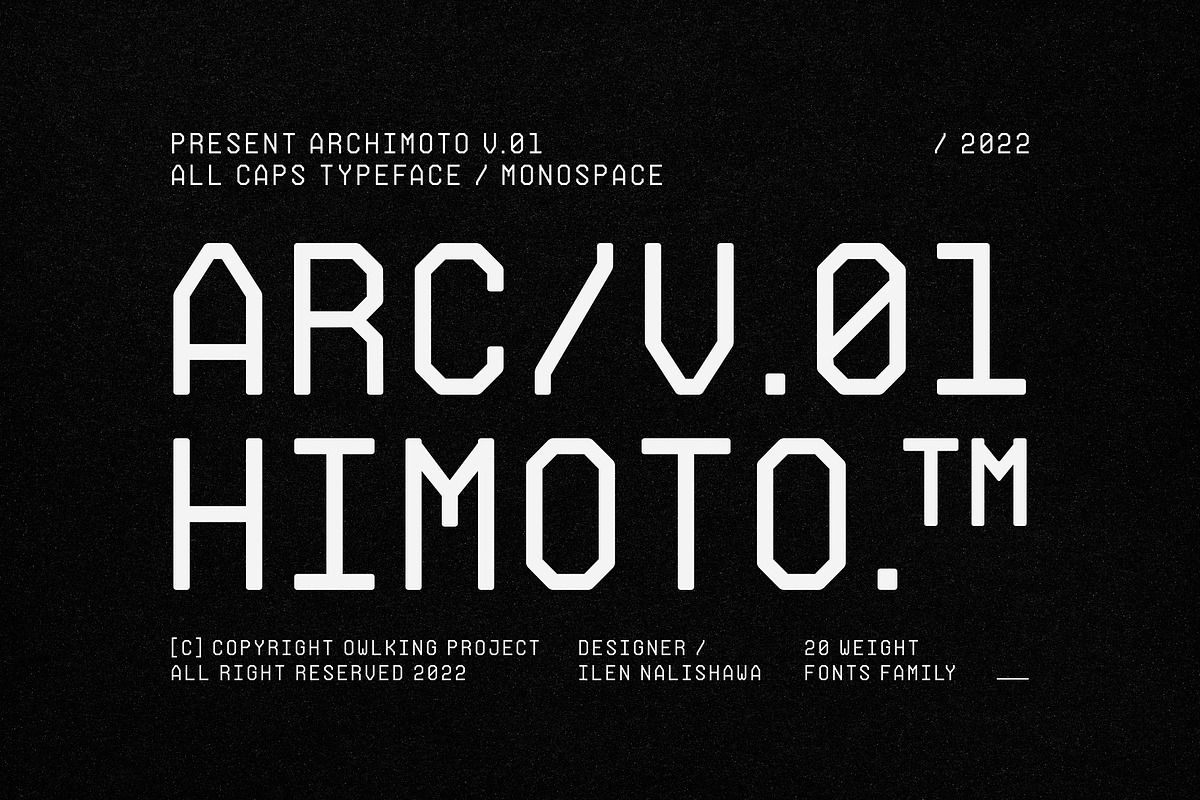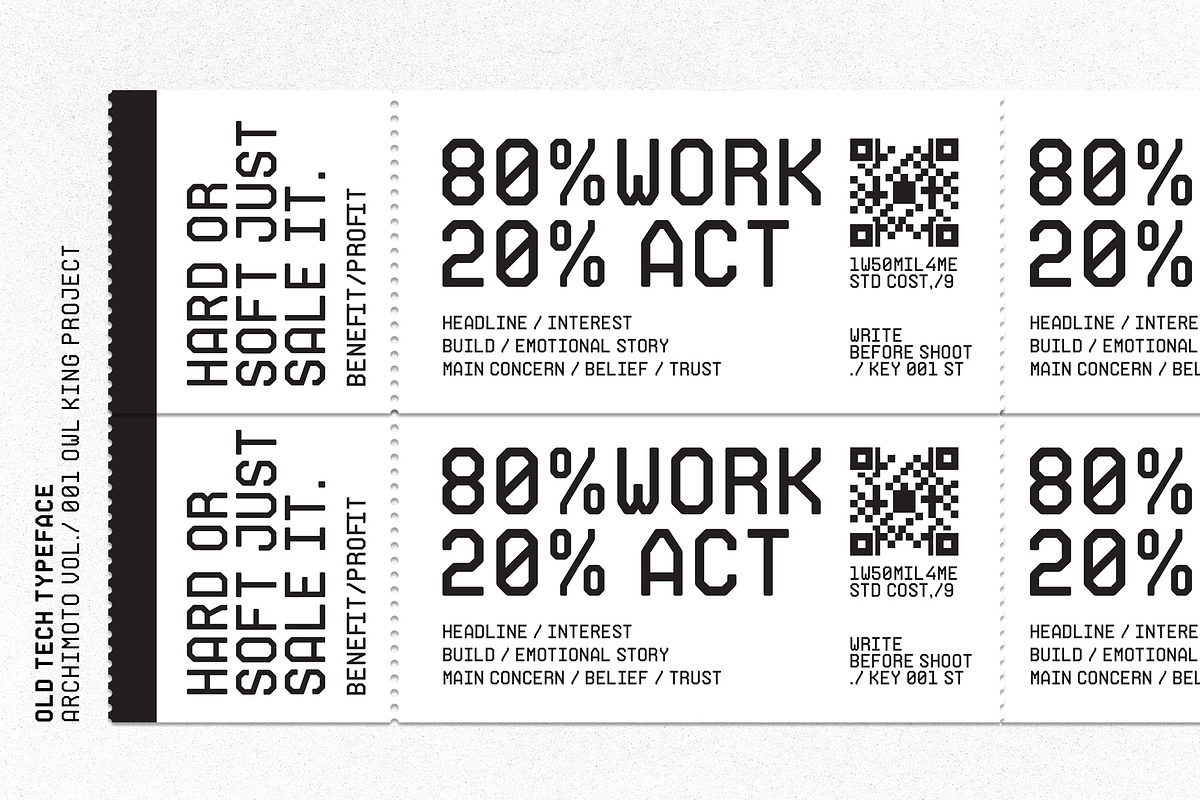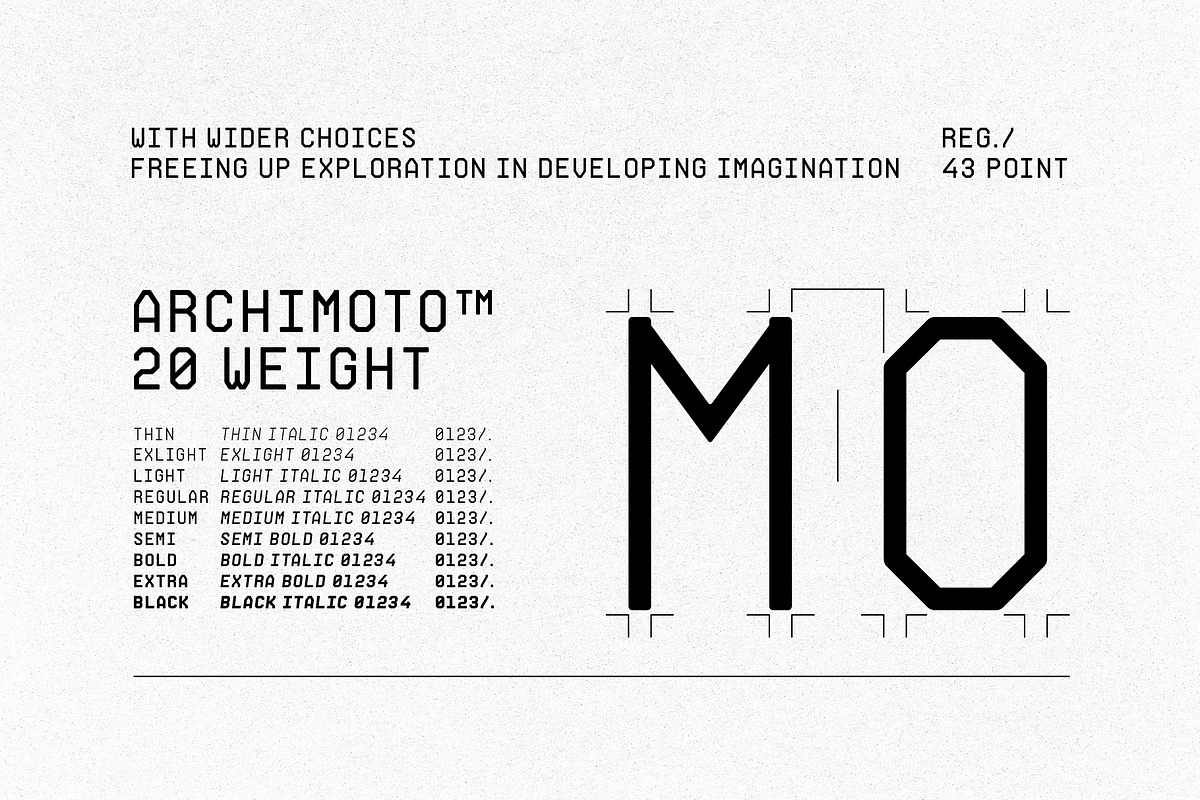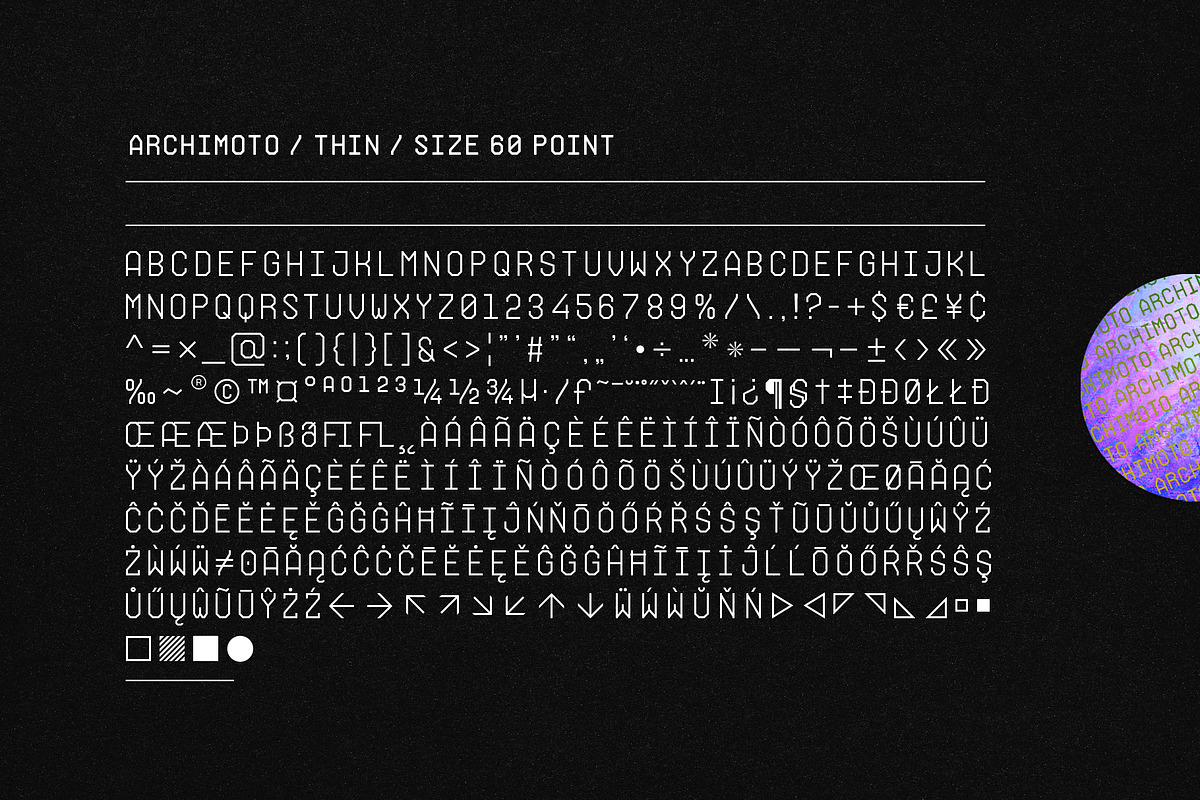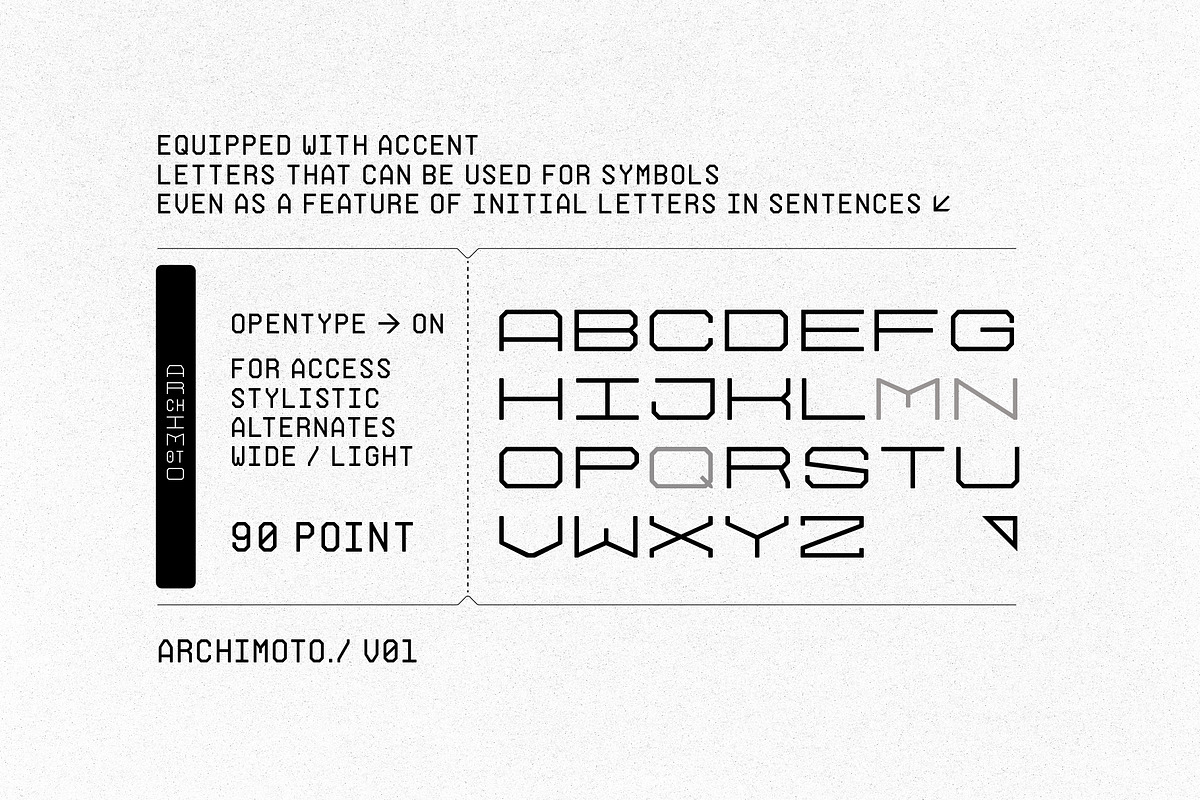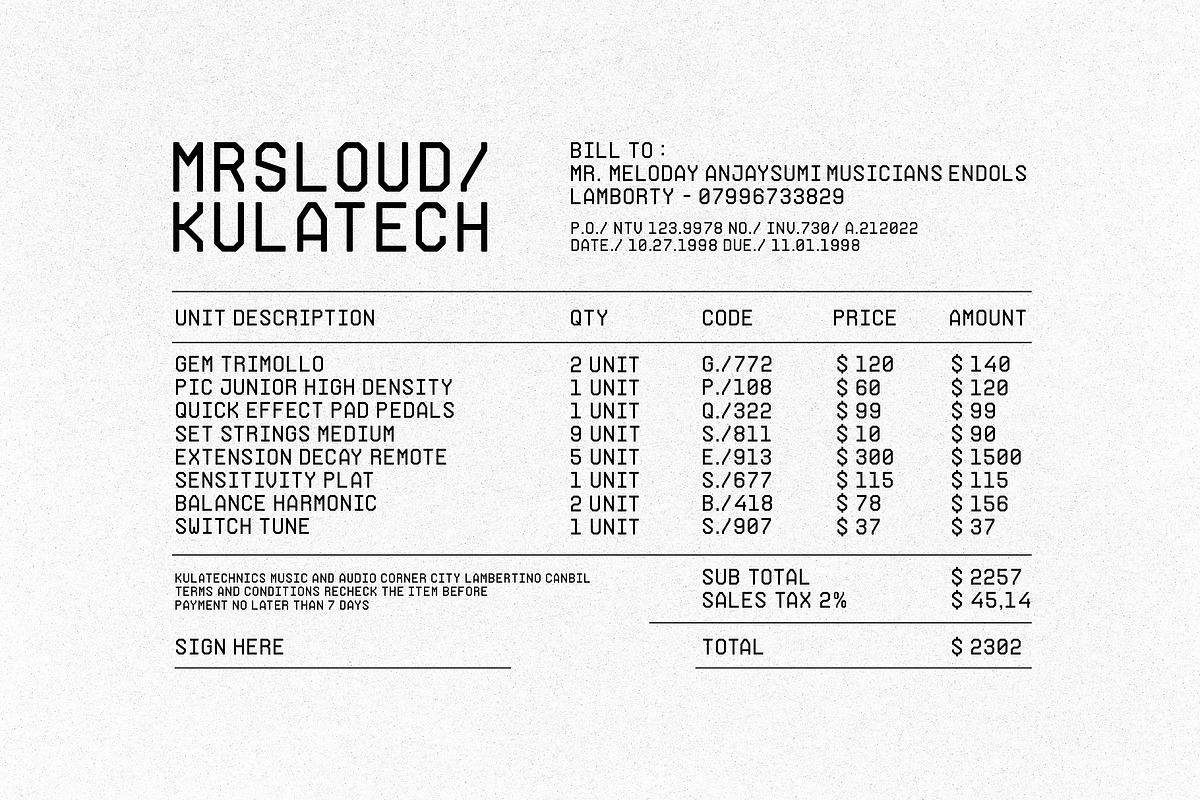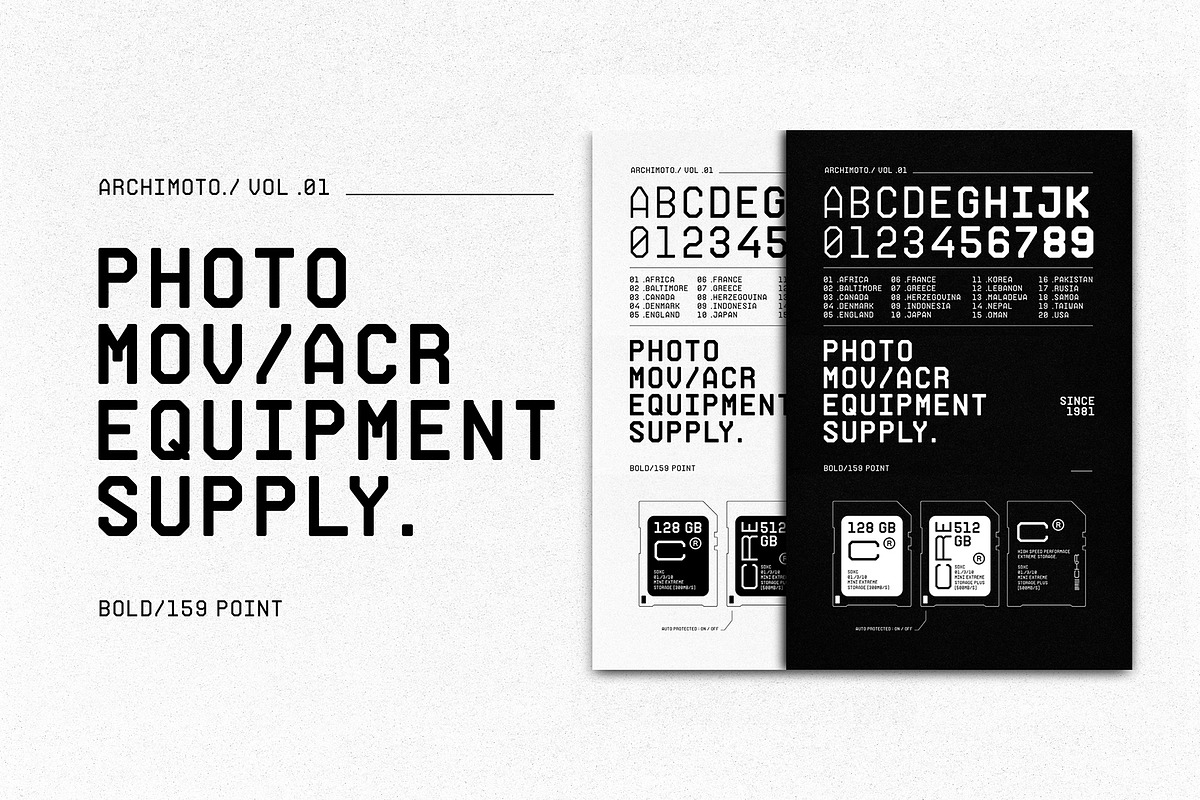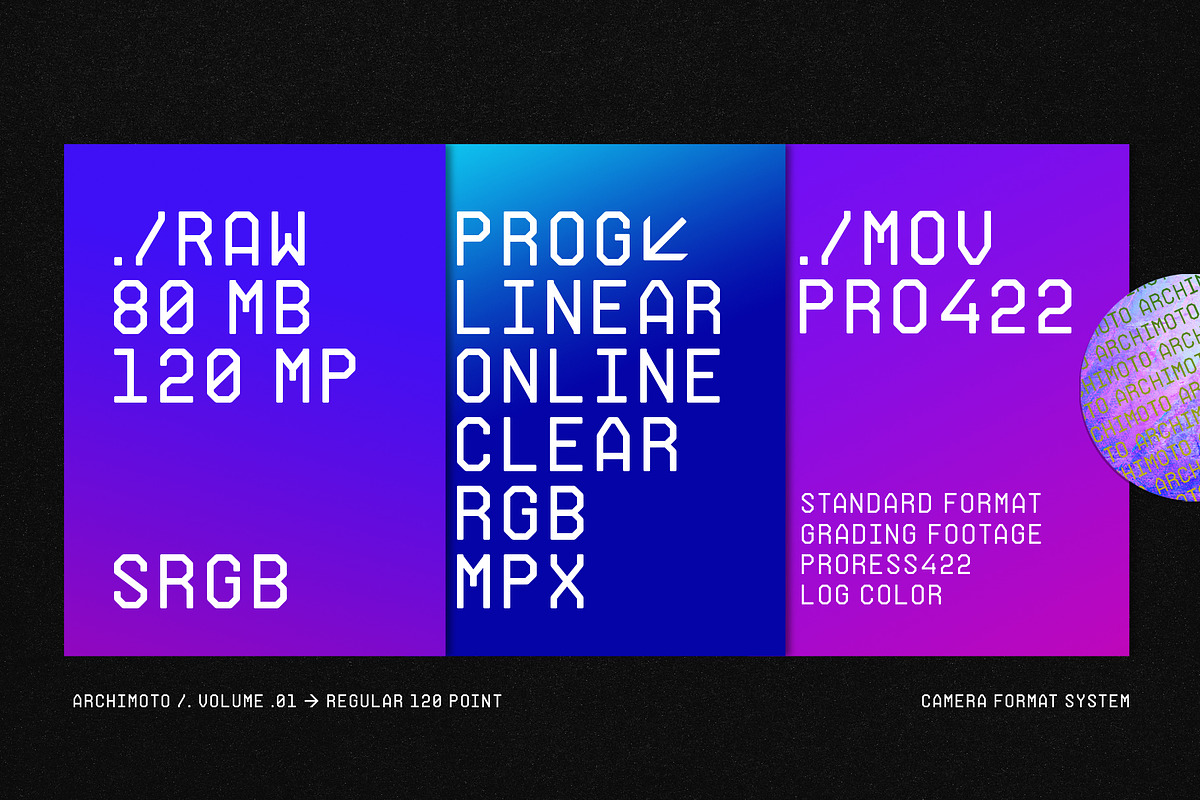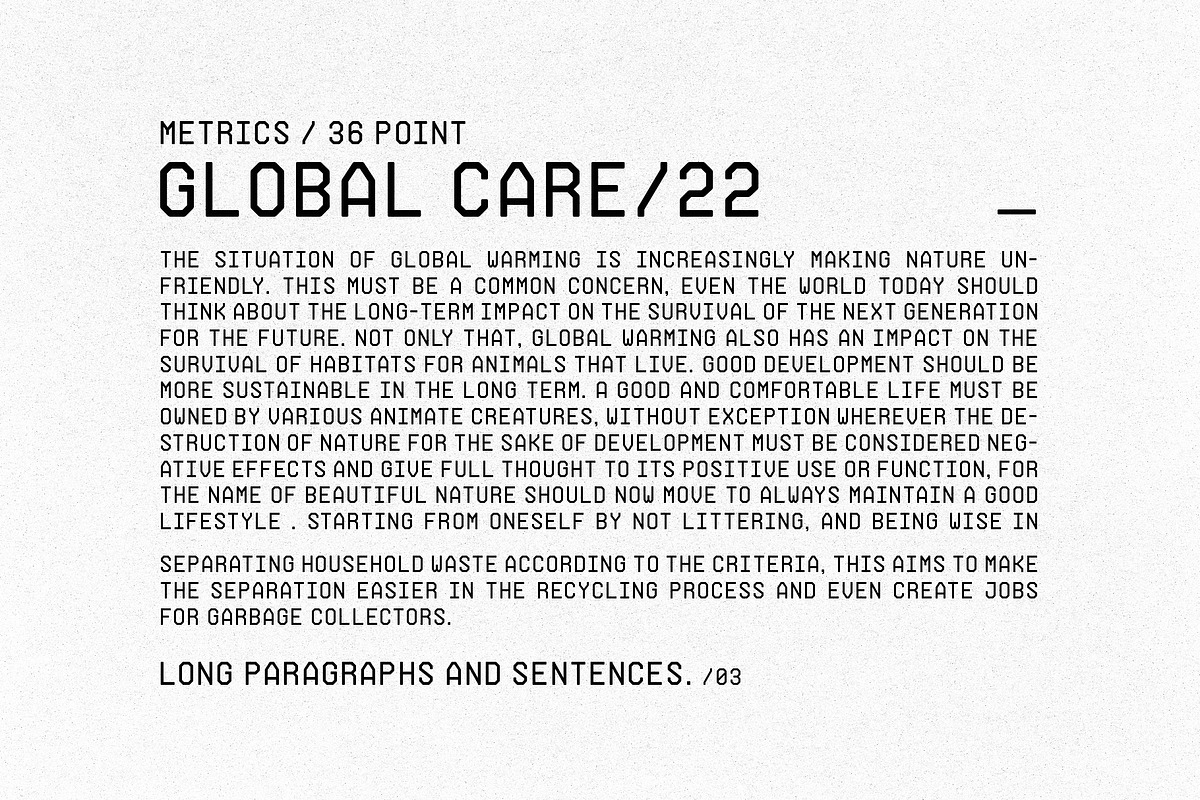
Archimoto
Responded to the design of working drawing techniques in the world of architecture and letters on old stuff photography lens bodies, archimoto is designed with a more modern form, a little touch of detail in the corner area is so smooth that it aims to provide comfort to the eyes, by bringing 20 sizes including italic archimoto can be used more freely and can be adjusted more extensive exploration of its use. archimoto can be used as headlines and body text, the level of readability that looks comfortable makes the arrangement of letters more beautiful.